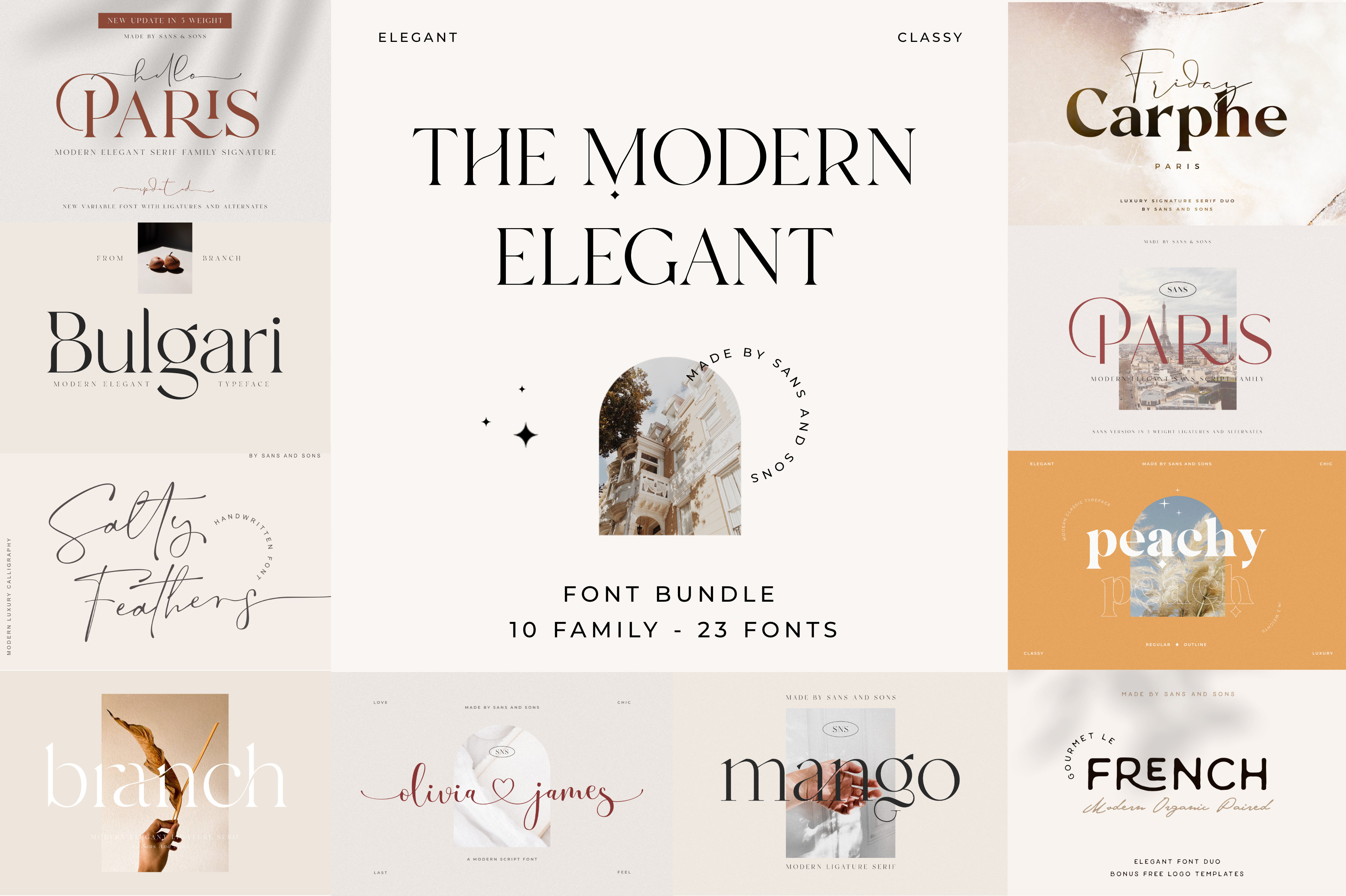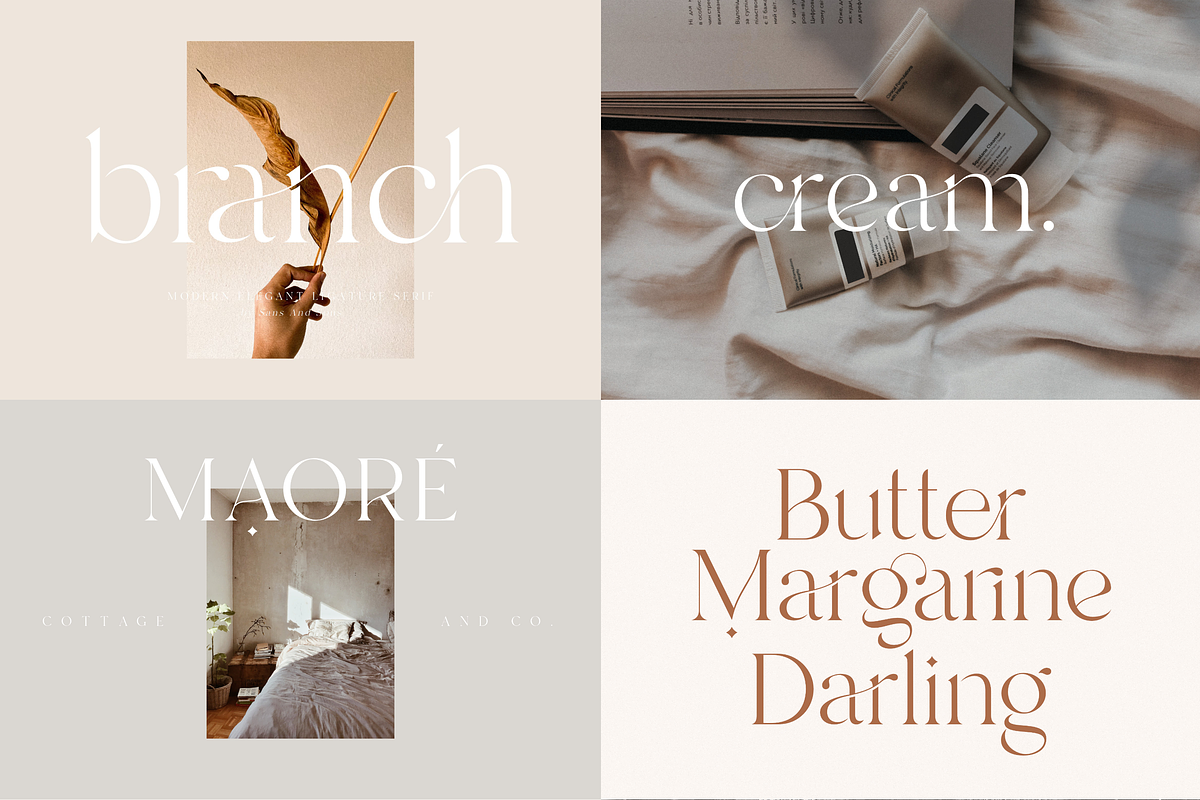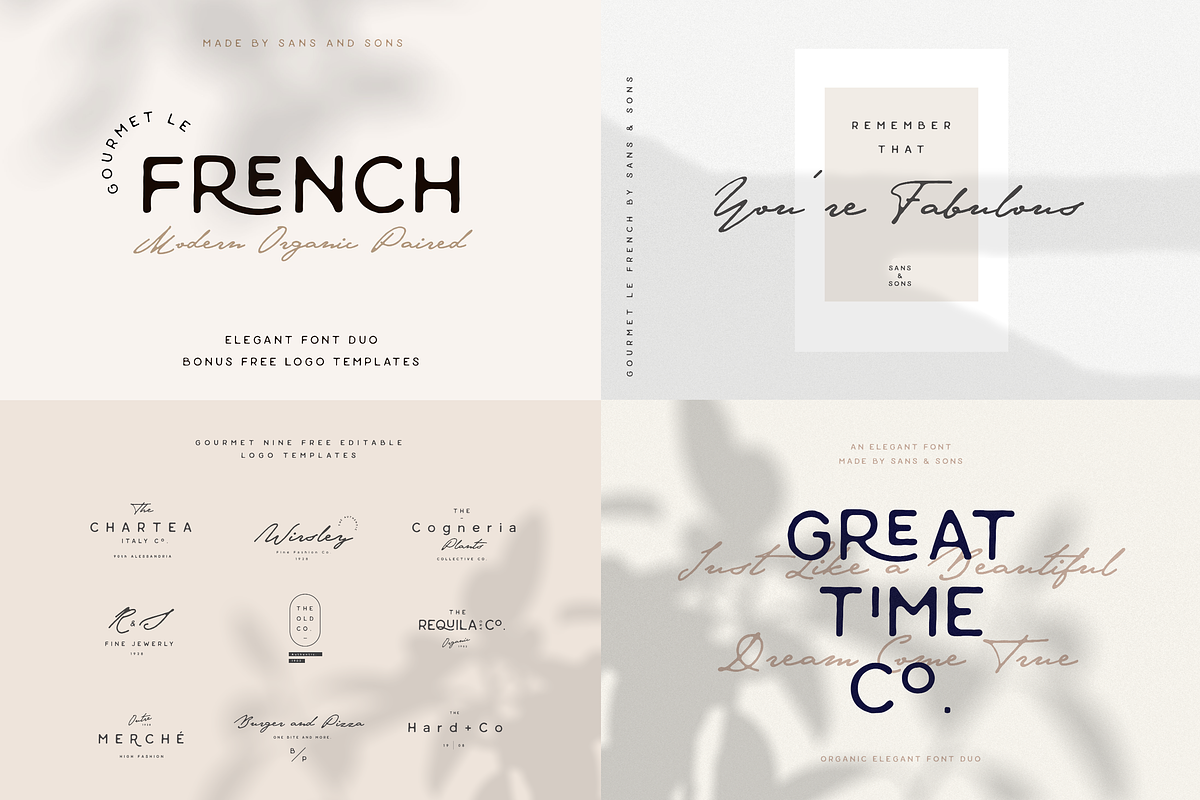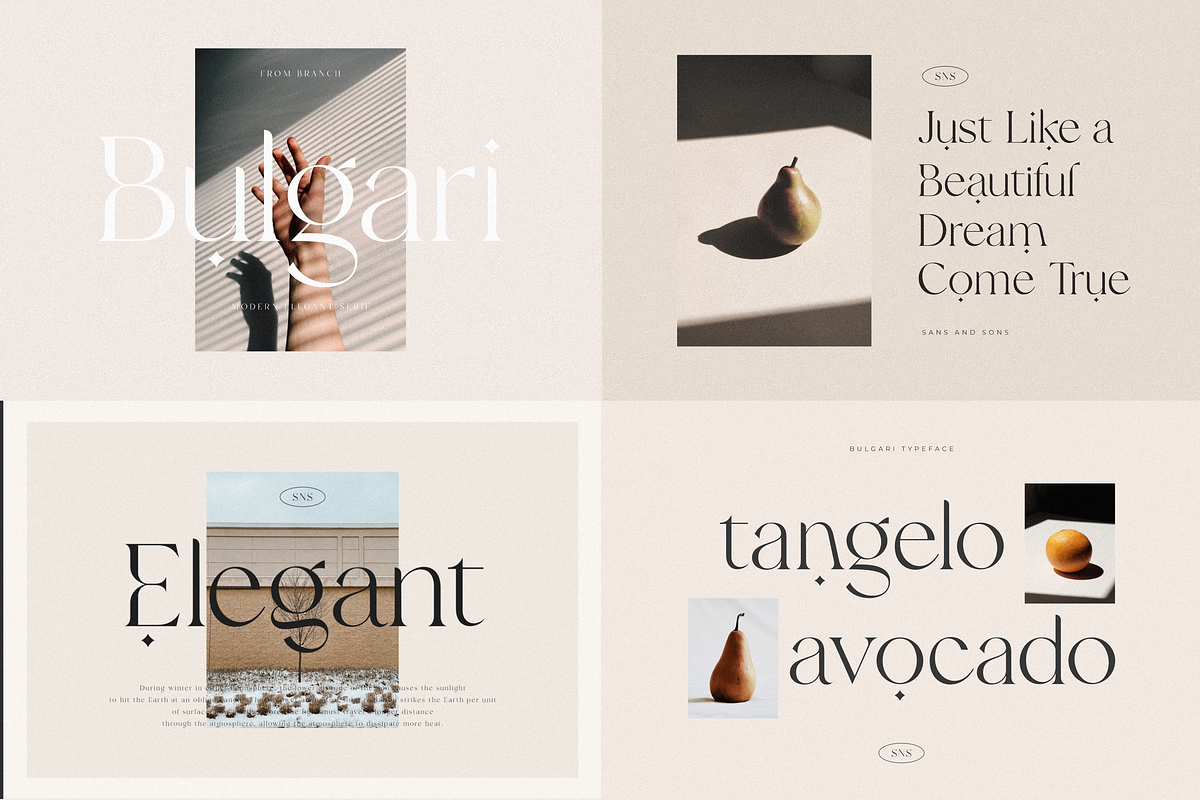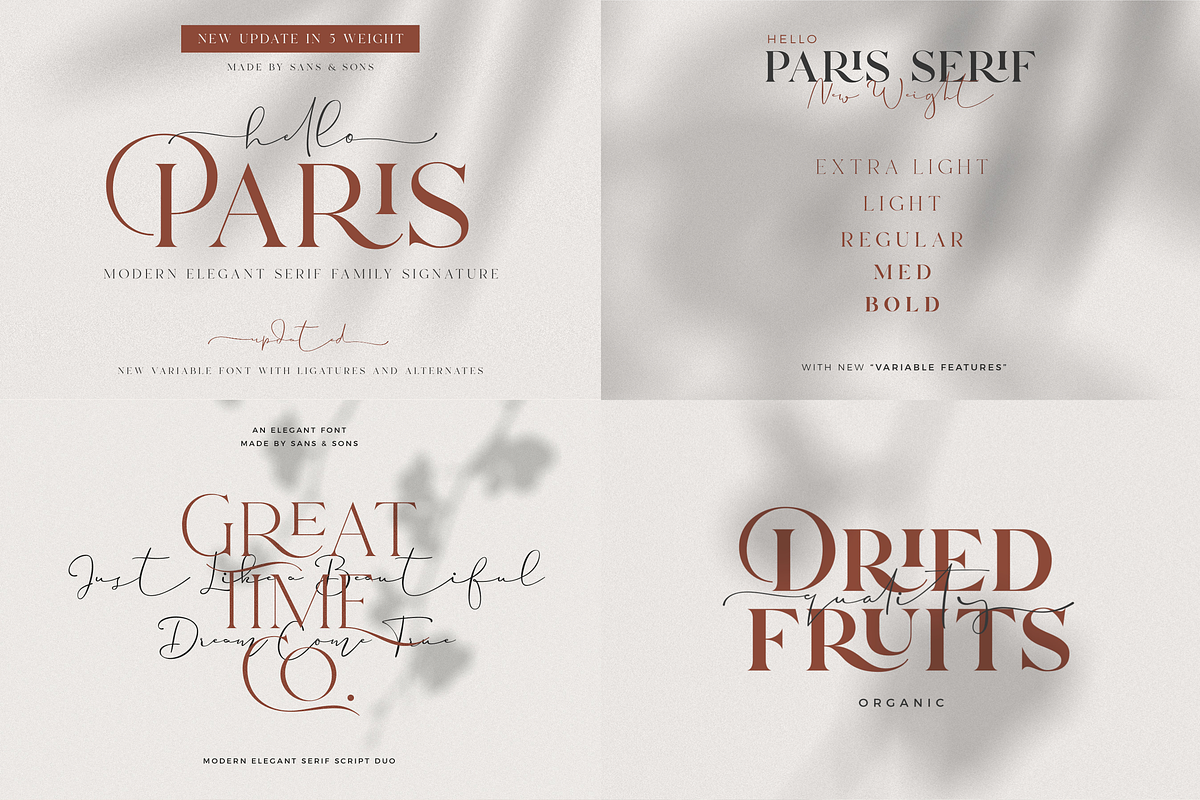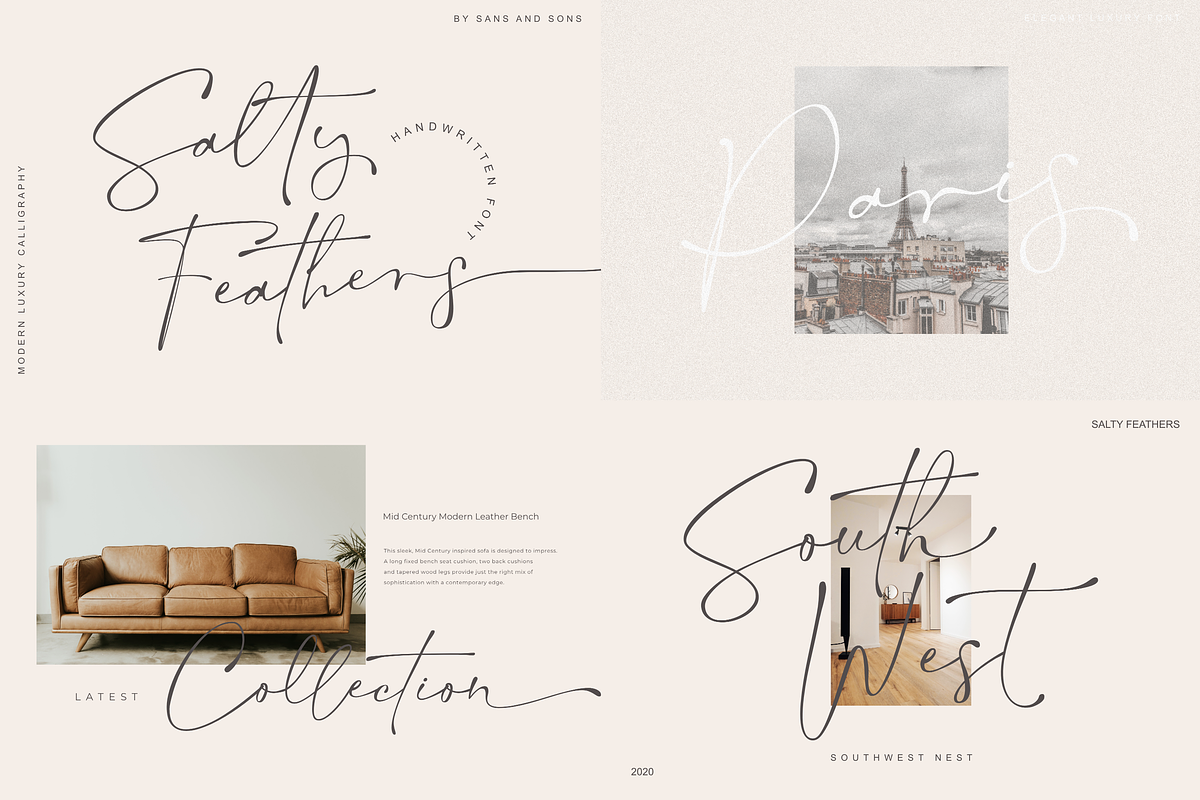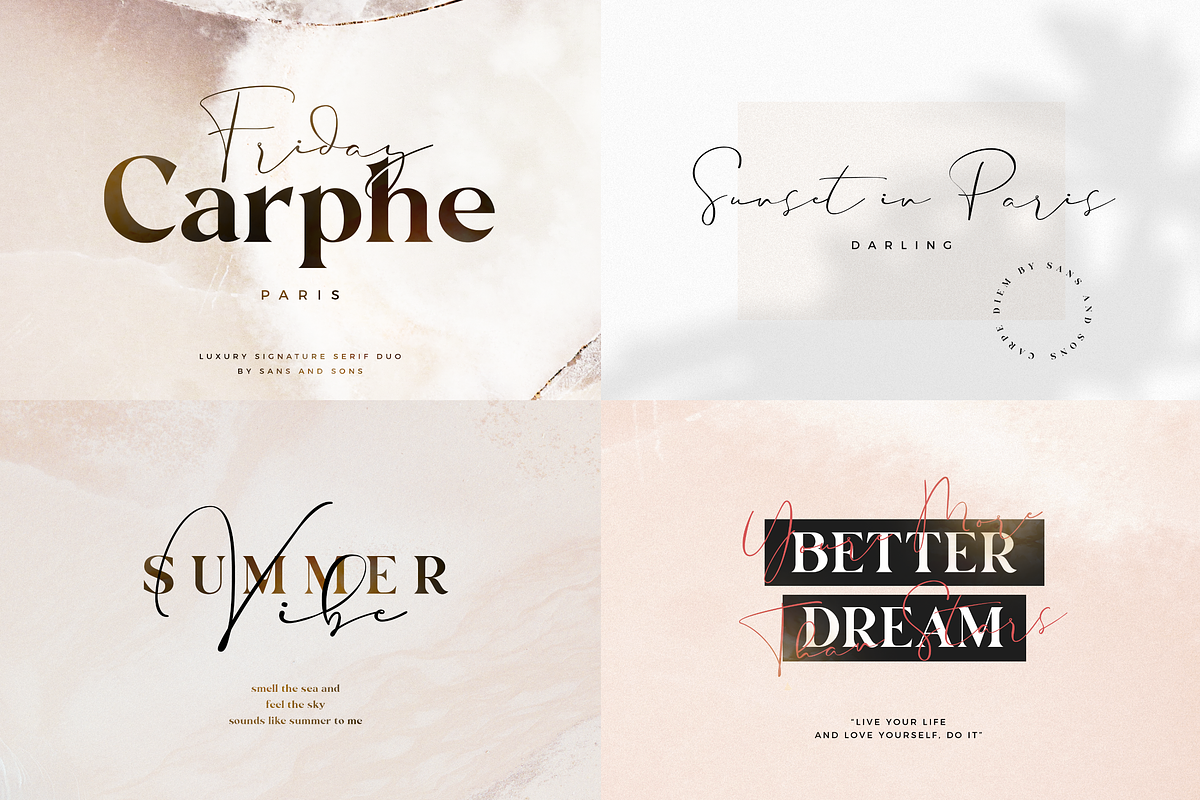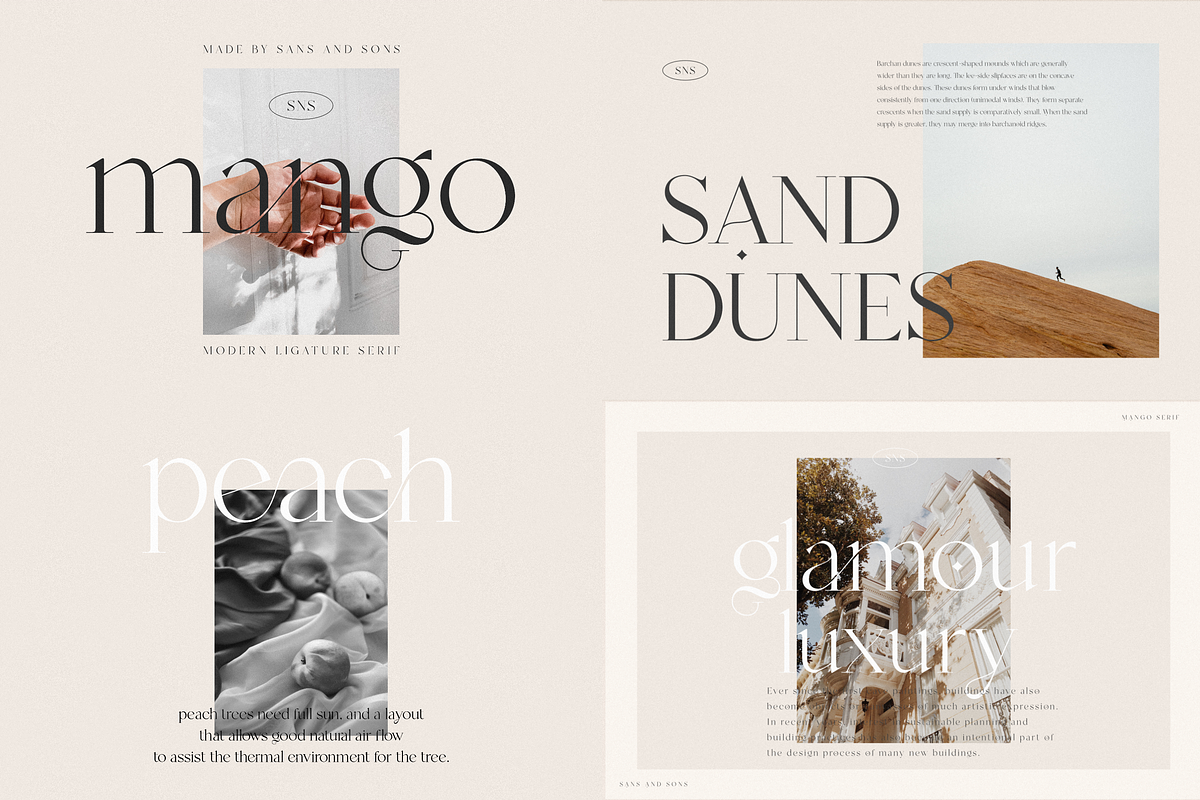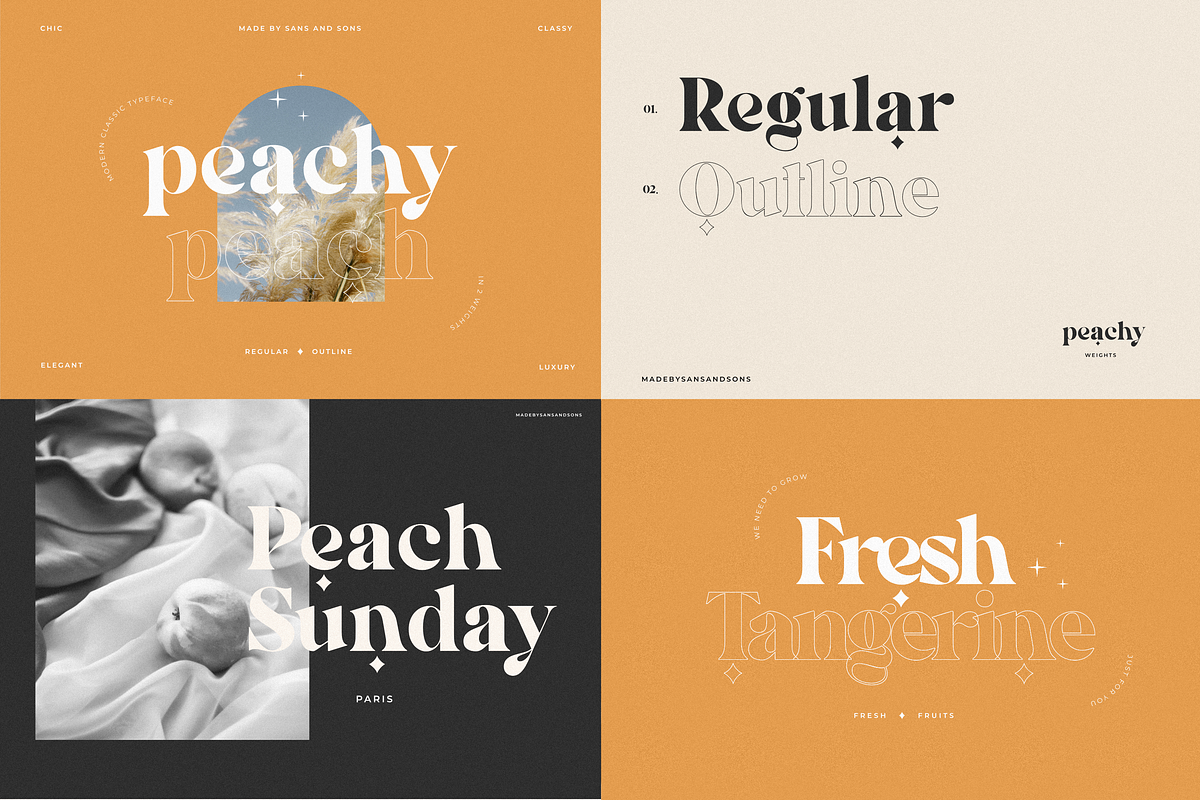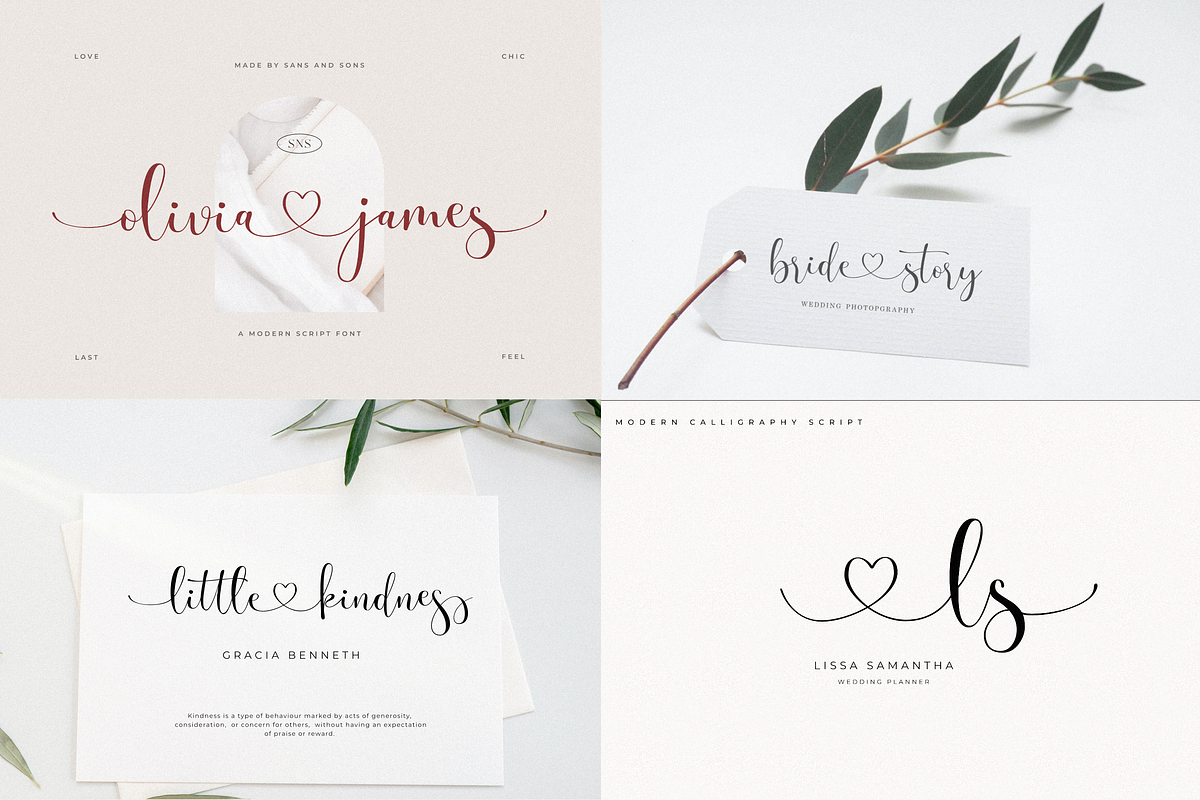
The Modern Elegant Font Bundle + Bonus
This bundle contains 23 typefaces including 10 high-quality font families. Our best-selling fonts from Sans Serif, Serif, and Script Font all with modern elegant, and stylish looks. The bundle also includes bonus vectors for your artwork and logos in .eps or .ai format. normal price $195 you can get only $29.
Fonts Included: